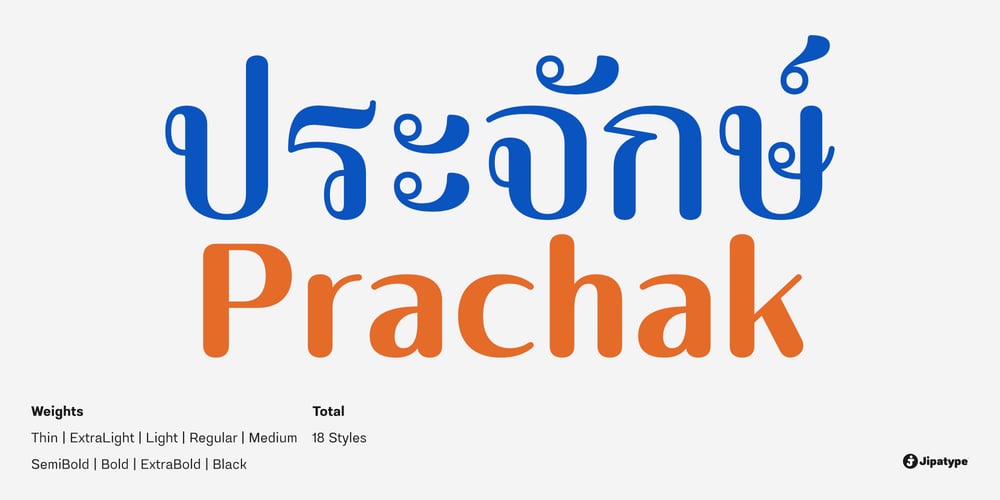
Prachak Font Family was designed by Anupap Jaichumnan and published by Jipatype. Prachak contains 18 styles and family package options. Prachak is a typeface inspired by the Pong typeface family, particularly the Pong Mai typeface. The Pong typefaces became popular after the 1932 Siamese Revolution, during a period of rapid growth in the newspaper industry. Pong was used in newspaper headlines to create eye-catching, prominent displays. The Prachak typeface is a reinterpretation by Jipatype, modified for simplicity and enhanced style, offering 18 different variations. It supports both Thai and Latin-1 characters.